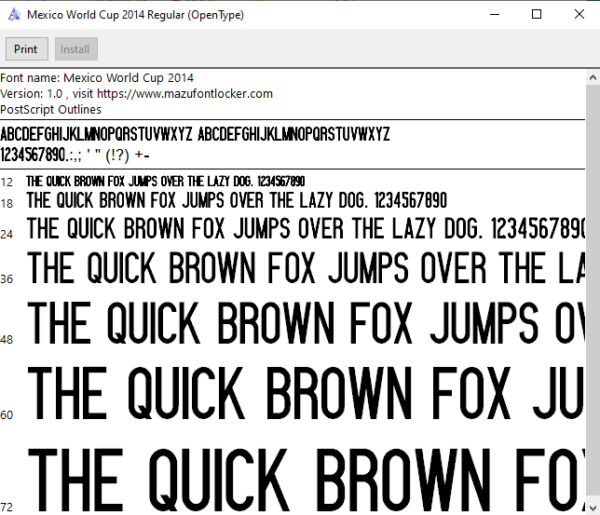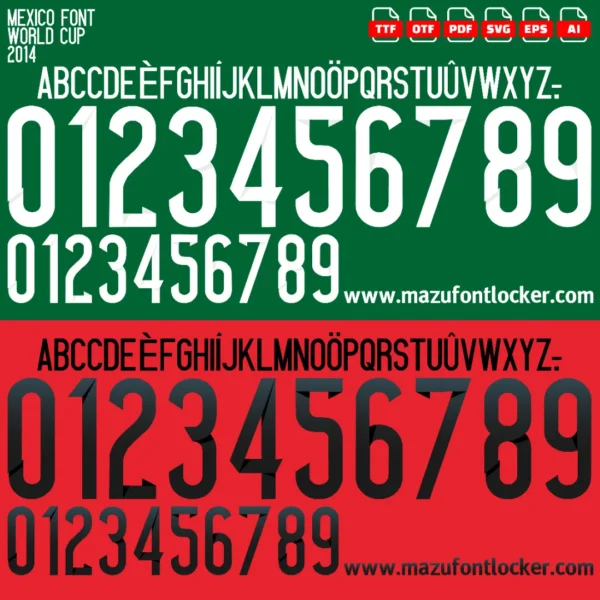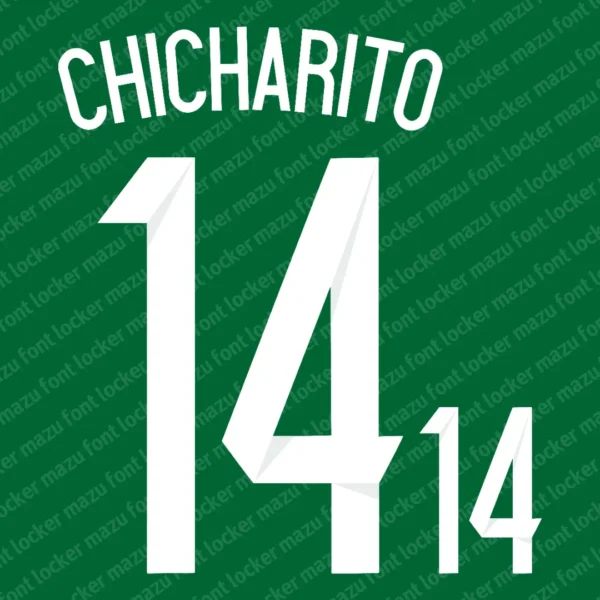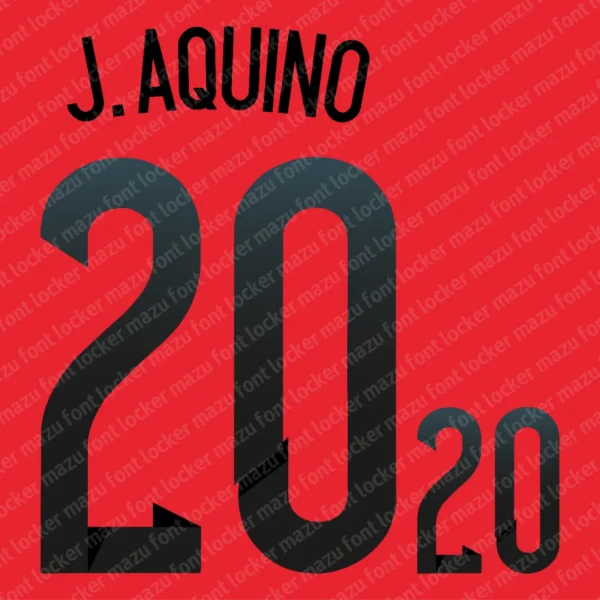
Mexico World Cup 2014 Font Vector – Stunning El Tri Legacy Masterpiece
This font captures the commanding, iconic, spirited, and ultra-premium lettering that perfectly embodies Mexico’s rich football heritage, unwavering national pride, and relentless fighting spirit, delivering unmatched authenticity, dynamic energy, timeless World Cup style, and elite-quality craftsmanship for premium jersey mockups, football designs, striking sports visuals, passionate fan creations, and professional branding projects.
Mexico World Cup 2014 Font Vector – Stunning El Tri Heritage Typeface
The Mexico World Cup 2014 Font Vector is a premium typeface that accurately recreates the official match lettering worn by the Mexico National Football Team during the 2014 FIFA World Cup in Brazil. This high-quality vector font kit captures the distinctive typography featured on El Tri’s iconic World Cup jerseys, perfectly complementing the nation’s legendary green, white, and red identity throughout one of football’s biggest tournaments.
Designed for professional designers, football enthusiasts, and passionate Mexico supporters, the Mexico World Cup 2014 Font Vector delivers exceptional authenticity for creating realistic jersey mockups, football merchandise, social media graphics, match posters, and custom fan artwork. It faithfully preserves one of the most recognizable World Cup namesets worn during Brazil 2014.
Why Choose Mexico World Cup 2014 Font Vector
This font stands out thanks to its precise vector construction and authentic tournament styling. Every character has been carefully recreated to match the official shirt lettering worn by Mexico throughout the 2014 FIFA World Cup. Whether you’re producing realistic kit templates or creating nostalgic football artwork, the Mexico World Cup 2014 Font Vector delivers a genuine professional appearance.
The lettering featured in the Mexico World Cup 2014 Font Vector combines bold geometric shapes with modern sporting proportions. Its clean construction and distinctive details reflect the passion, tradition, and competitive spirit that define Mexico on the international stage.
The numerals feature balanced curves, crisp edges, and outstanding readability. Built entirely as scalable vectors, every number remains sharp for jersey customization, digital graphics, posters, apparel, and large-format printing.
• Includes authentic federation crest glyph placement beneath player numbers
Mexico at the 2014 FIFA World Cup
The 2014 FIFA World Cup in Brazil marked another memorable tournament for Mexico as El Tri advanced from the group stage before facing the Netherlands in the Round of 16. Wearing their iconic green home kit, Mexico showcased disciplined football and unforgettable performances throughout the competition.
The 2014 squad featured renowned players such as Guillermo Ochoa, Rafael Márquez, Héctor Moreno, Andrés Guardado, Giovani dos Santos, Javier Hernández, and Oribe Peralta. Their memorable campaign and distinctive shirt lettering continue to be favorites among football fans and collectors worldwide.
The Mexico World Cup 2014 Font Vector is an independently designed typeface package inspired by the official shirt lettering worn during the 2014 FIFA World Cup. It has been carefully recreated for football enthusiasts, graphic designers, collectors, and creators producing custom jersey concepts, nostalgic football artwork, and fan-made projects.